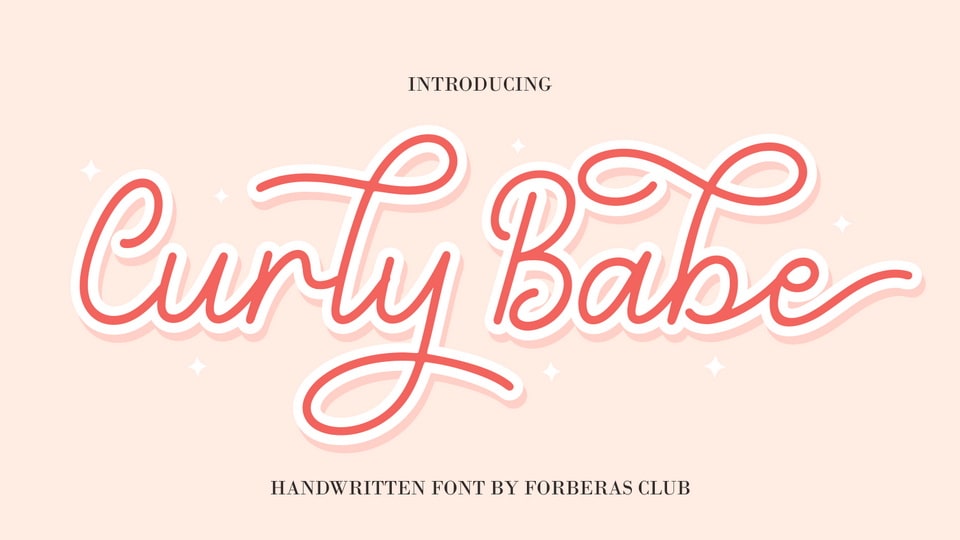
Download Curly Babe font, a fancy and elegant handcrafted typeface. Use it for your headings, logos, ads, printed quotes, packaging, and even your website or social media branding.